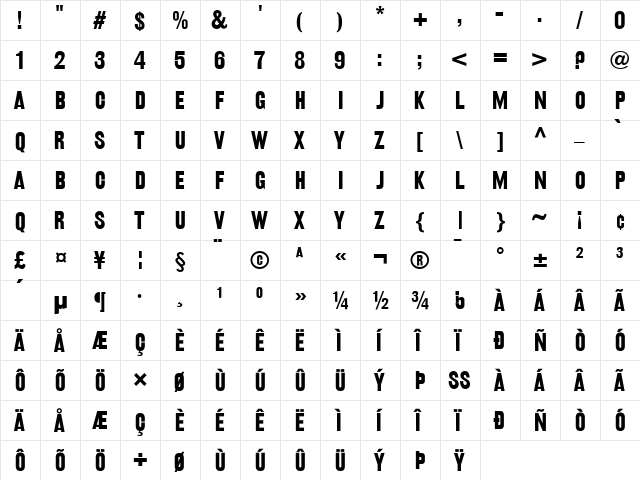
RailroadGothic Regular
Design Context for RailroadGothic Typeface
RailroadGothic has the quiet confidence of well-executed sans-serif typography: versatile, unobtrusive, and dependable at any size.
Font Pairing: Works well alongside a characterful serif or display font that can carry the expressive load while RailroadGothic handles the functional copy.
Pro Tip: Use RailroadGothic for UI labels, navigation, and short-form body copy where clean legibility is the priority.